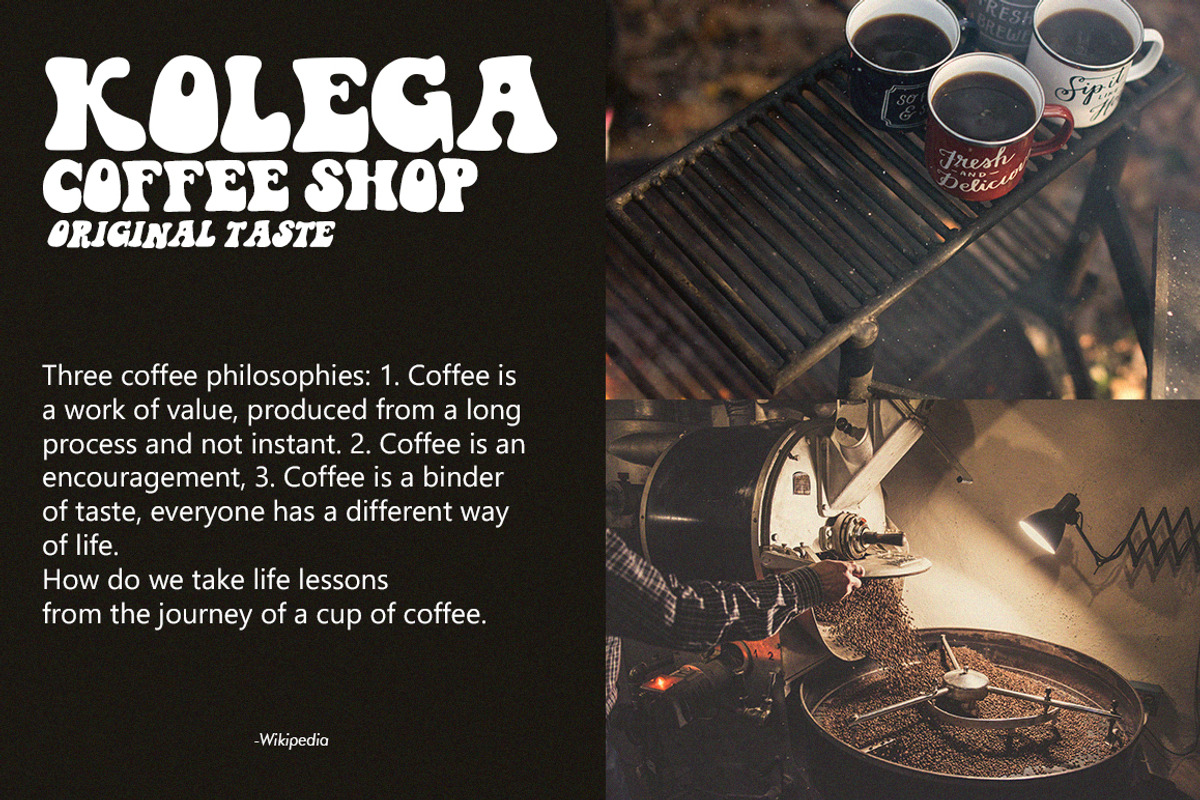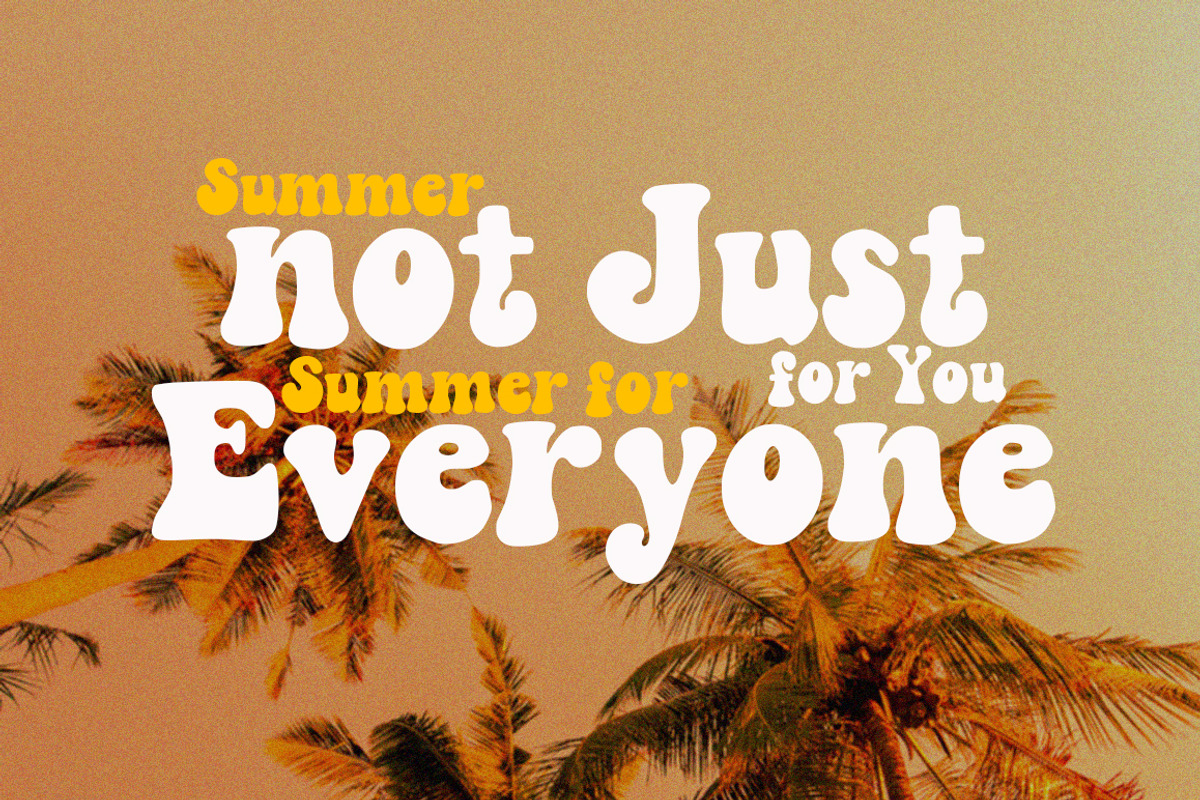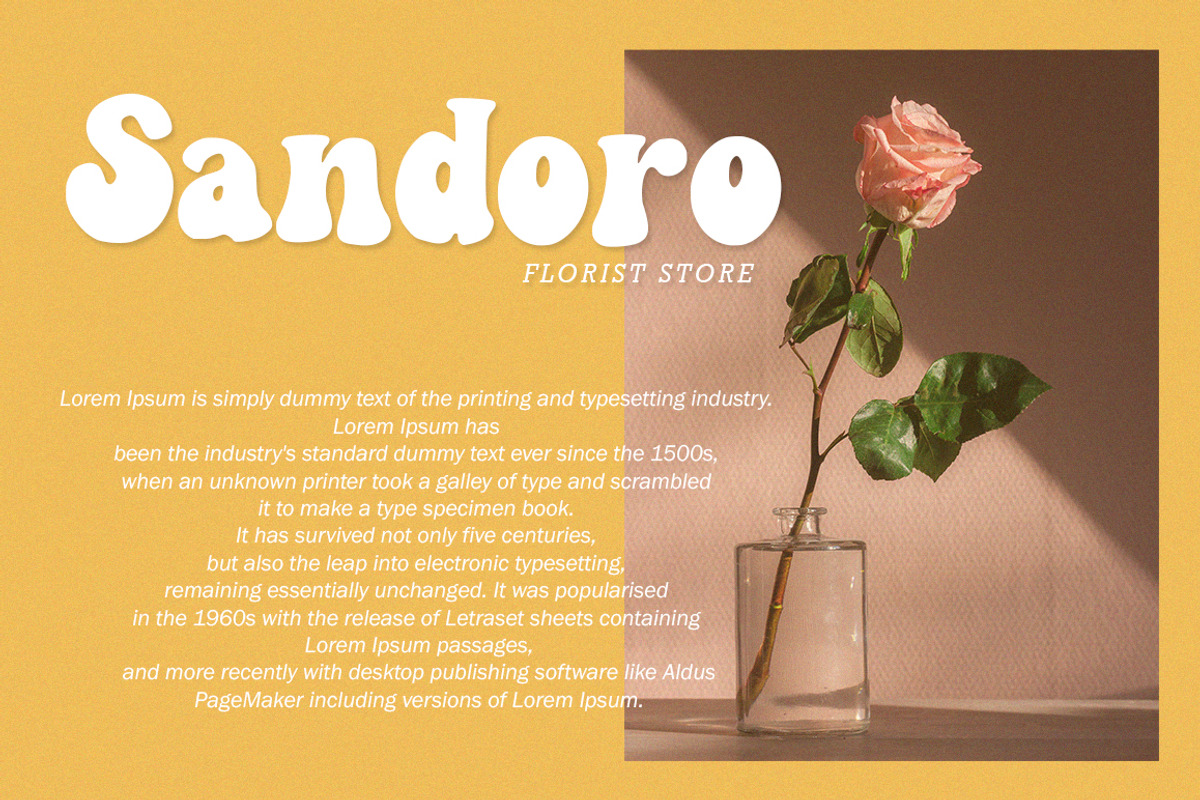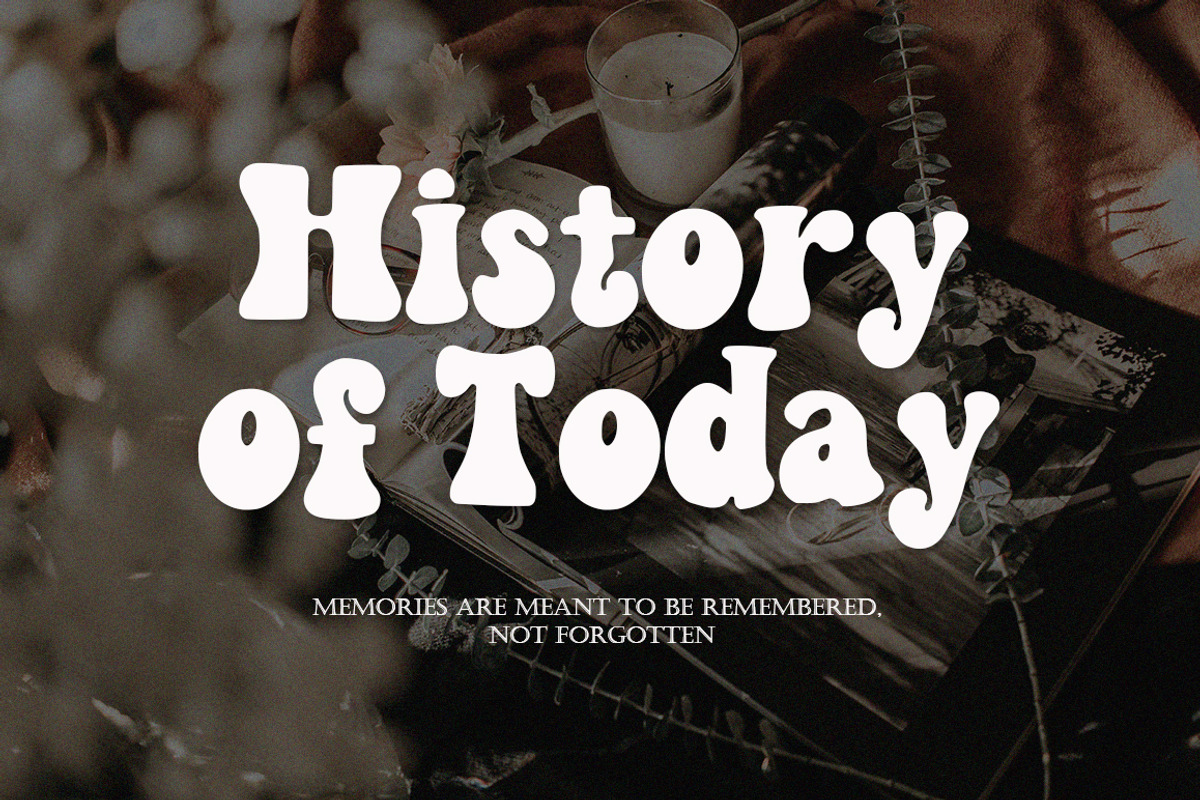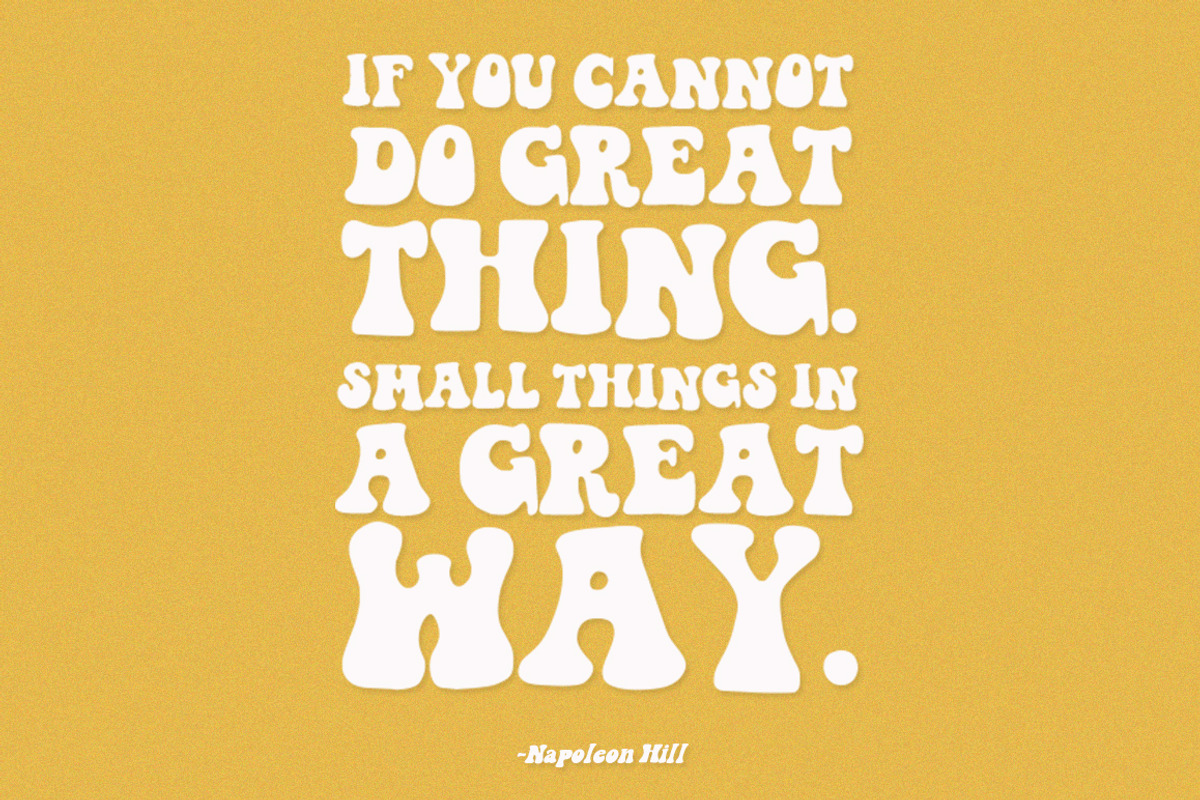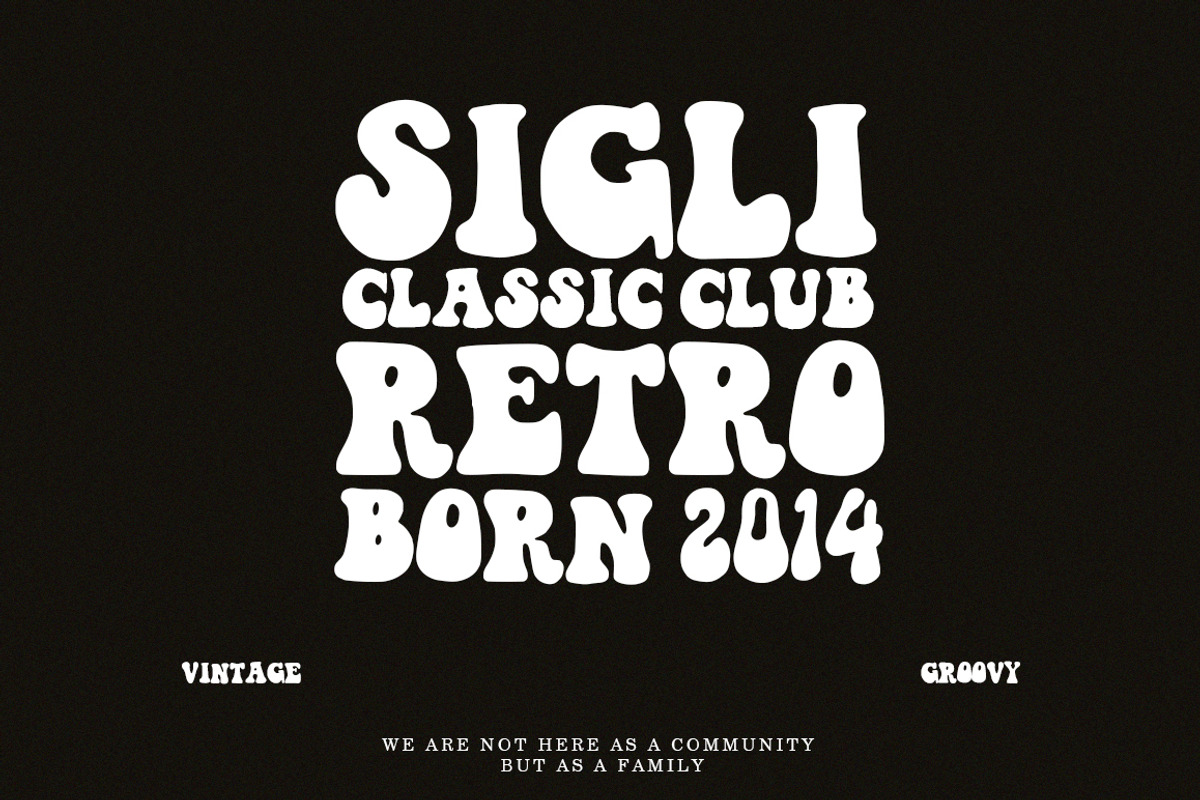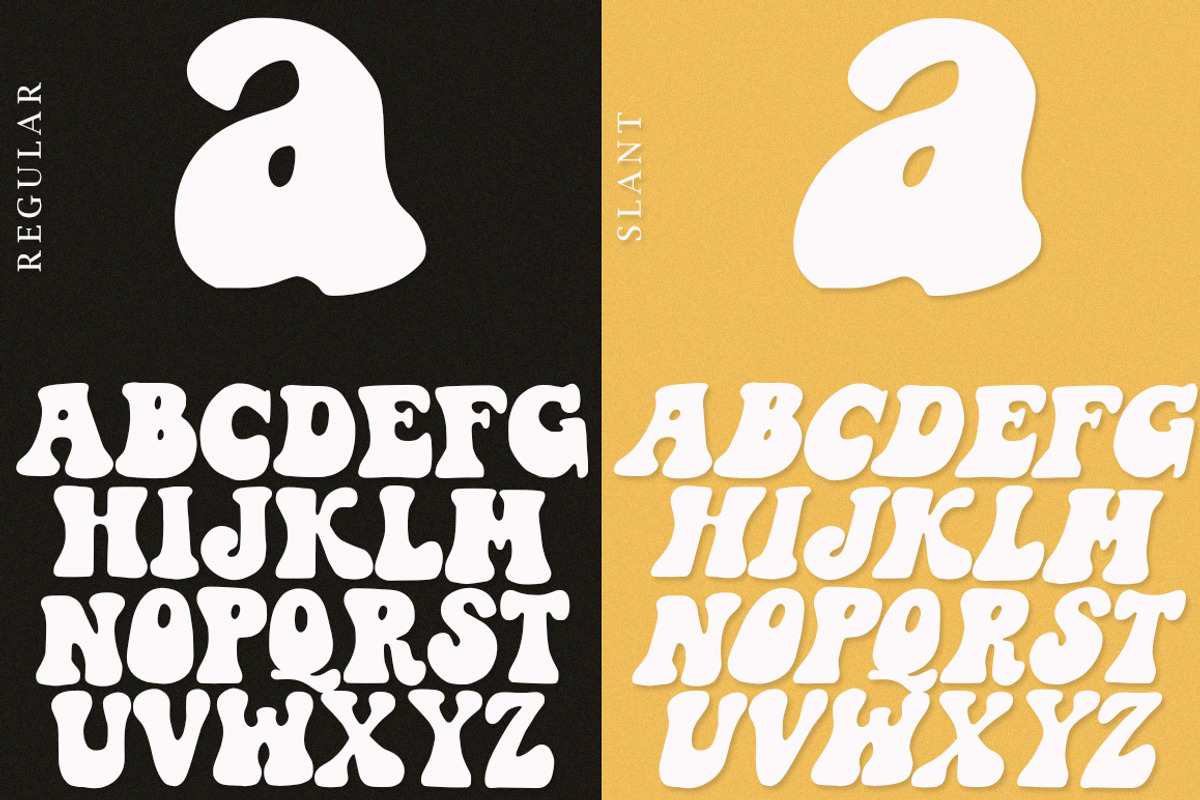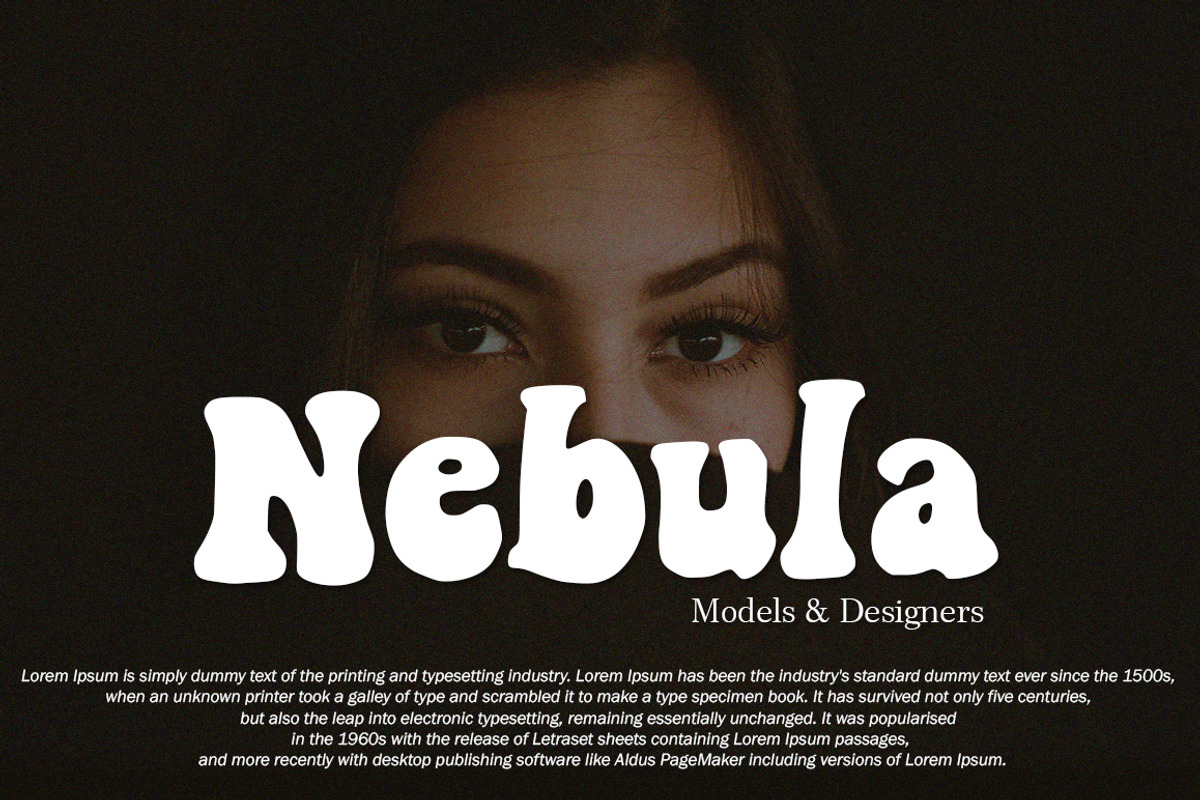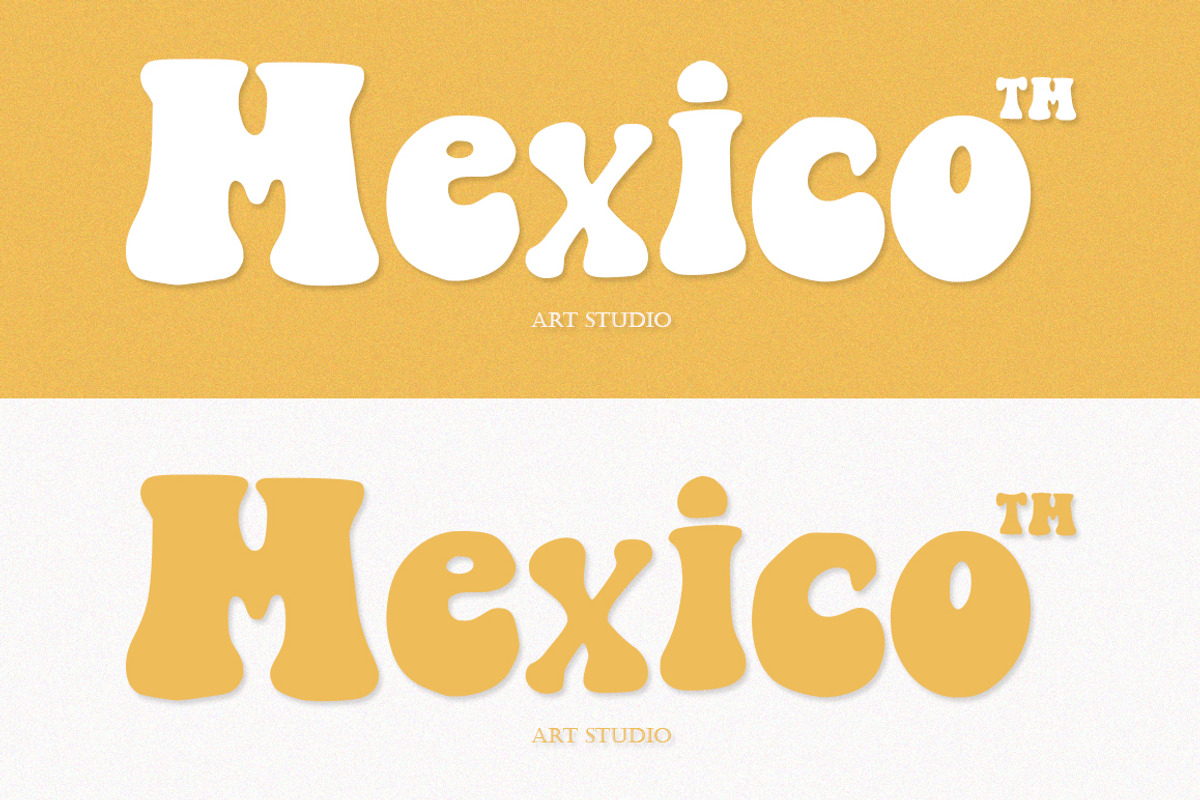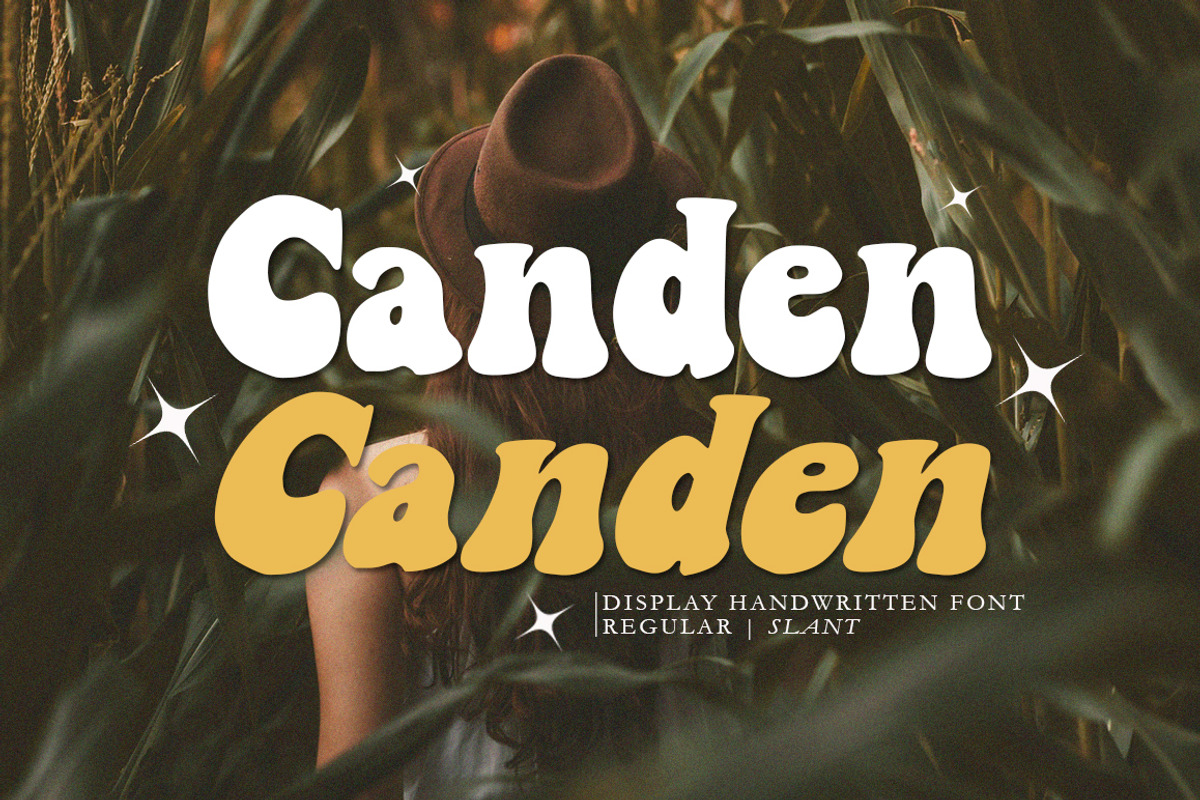
Canden - Display Handwritten Font
Canden - Display Handwritten Font serif look with simple, clean, visual elegance with subtle curves and beautiful bindings, An incredibly versatile font that works both large and small. This font is suitable for a wide variety of projects such as: headlines, logos, labels, branding projects, magazines, home appliance designs, product packaging, mugs, quotes, posters and many more. It can also be more expressive and playful, thanks to the many alternatives and binders that blend harmoniously in this font and make it more attractive and versatile. Try to change alternatives, fasteners and you will get a lot of options for your project that will make it Vintage & Unique.